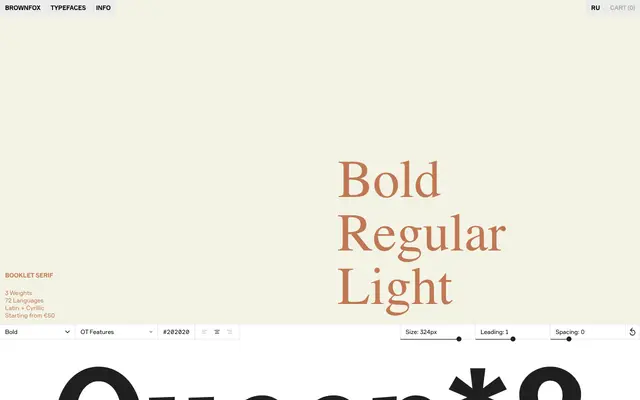
Booklet Serif
A three-weight text serif by Vyacheslav Kirilenko covering Latin and Cyrillic across 72 languages, aimed at editorial and publication use.
Designed by Vyacheslav Kirilenko and published by Brownfox, Booklet Serif offers Light, Regular and Bold weights suited to running text and display settings in editorial contexts. Its Latin and Cyrillic coverage across 72 languages makes it practical for multilingual publication work. The name and specimen copy suggest a focus on printed matter, journals and bulletin-style typesetting.
A traditional-leaning text serif available in three weights with no italic shown, suited to editorial and publication use, drawing on book typography conventions implied by the name.